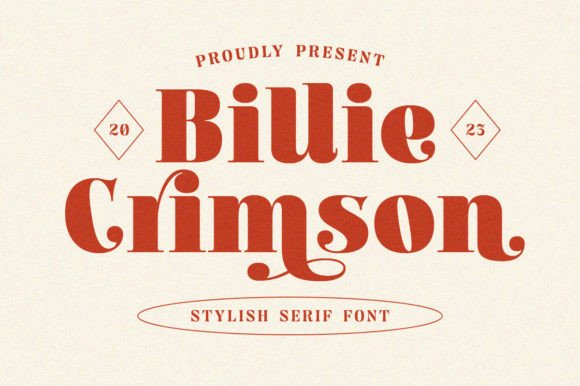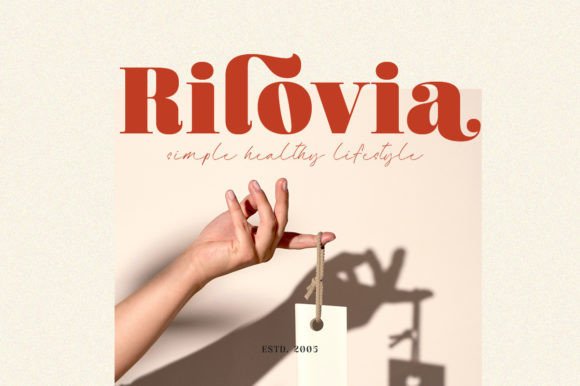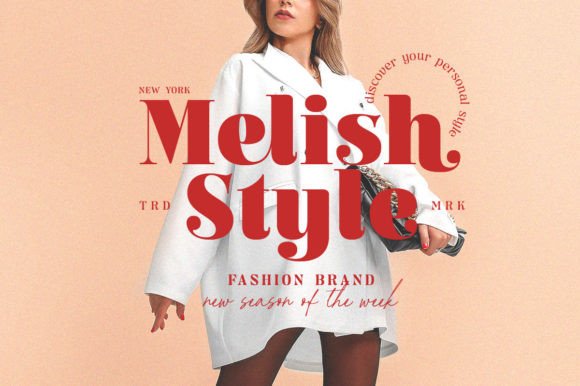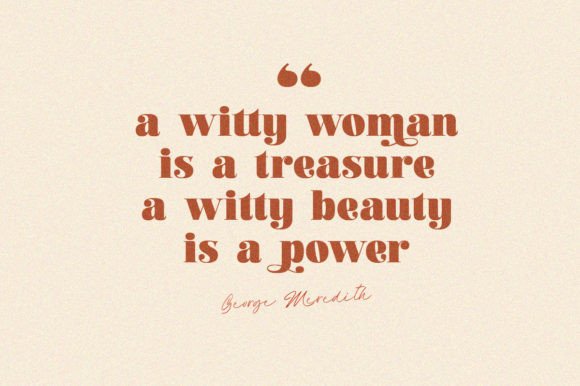
Billie Crimson Font
About the Billie Crimson Font
The wait is over! The incredible Billie Crimson Font is now available for your design toolkit. Billie Crimson is a classic and beautiful serif font that evokes a sense of timeless elegance. With its refined curves and understated design, it’s perfect for projects that require a touch of sophistication, from book covers to high-end branding. “Billie Crimson” is a font that exudes confidence and beauty, and it will never go out of style.
Billie Crimson Font Usage Examples
Billie Crimson Font Example